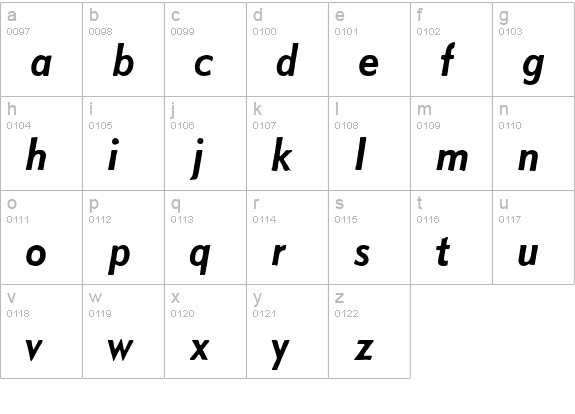
Metro Medium Oblique HPLHS Font Details
Metro Medium Oblique HPLHS is a balanced, medium-weight, italic variant in the Metro typeface family \xE2\x80\x94 well suited to sub-headlines, navigation, and balanced editorial work.
Metro Medium Oblique HPLHS is a sleek and modern typeface designed for a wide range of design projects. With its clean lines and stylish appearance, this font exudes sophistication and professionalism. The oblique style adds a touch of elegance and flair to any text, making it perfect for headings, titles, and other prominent text elements. What's even better is that Metro Medium Oblique HPLHS is available for free download at FontsMarket.com. This means you can easily access this high-quality font and incorporate it into your designs without any cost. Whether you're working on branding materials, website design, or any other creative project, Metro Medium Oblique HPLHS is a versatile font that will elevate your work to the next level.